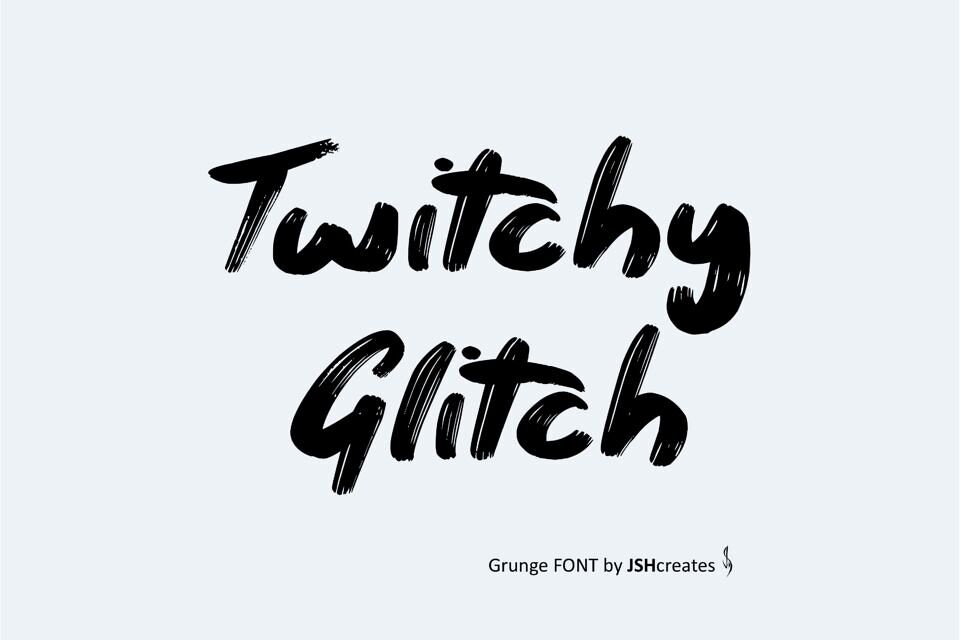
Twitchy Glitch Font
Twitchy Glitch is a Handwritten grunge font. Perfect for advertising and display purposes, including banners, book covers, shirts, posters, logos and much more!
Font includes all upper and lowercase letters, numbers, characters and punctuation.